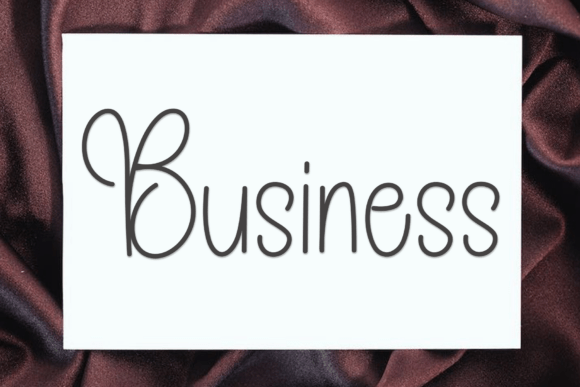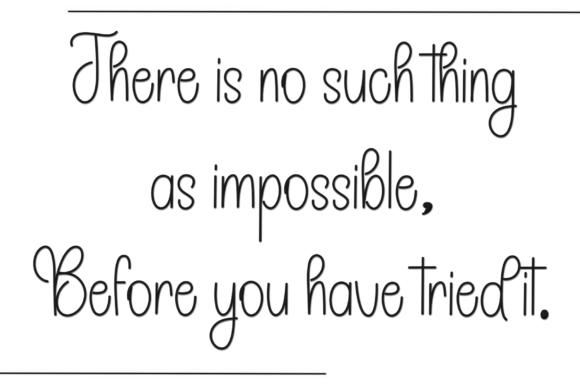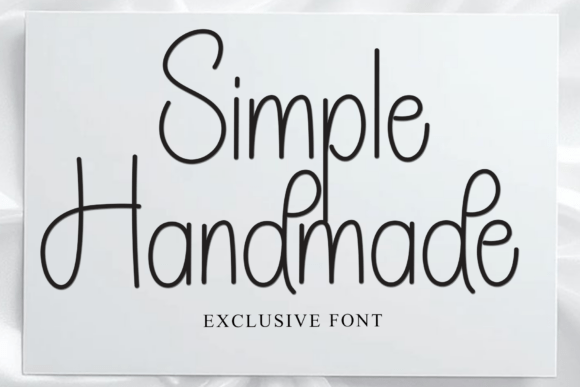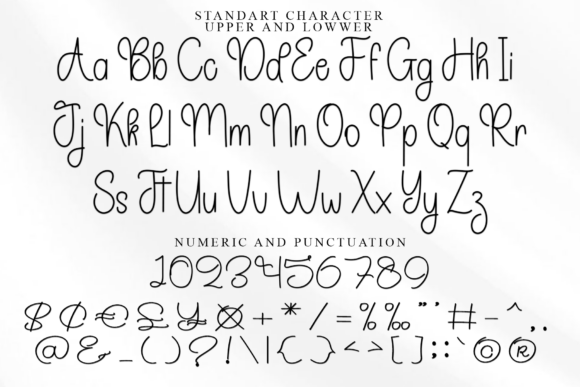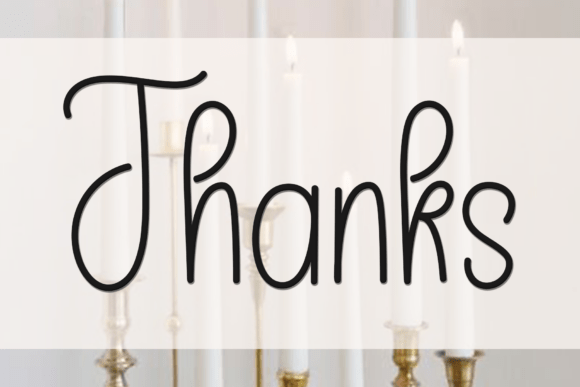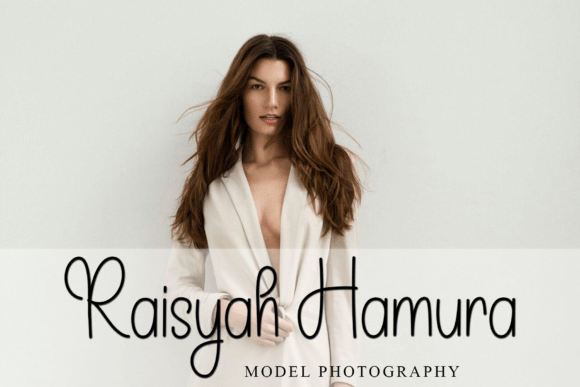
Introduction to Smooth Handwriting Font Font
Fonts play a crucial role in design, and the Smooth Handwriting Font font is a typeface that brings both character and versatility to any project. Whether you’re working on a branding project, a website, or a print design, the Smooth Handwriting Font font offers a unique style that can elevate your work.
Smooth Handwriting is a sophisticated and fluid script font designed to bring a graceful, artisanal touch to creative projects.
This style of calligraphy font features vertically elongated letterforms with a consistent monolinear weight and smooth character joins The structure utilizes tall ascenders and a rhythmic visual flow to create a sense of airy, hand-sculpted movement that feels both personal and high-end.
Key Features of Smooth Handwriting Font Font
Why Choose Smooth Handwriting Font Font?
The Smooth Handwriting Font font is more than just a typeface – it’s a design tool that helps you communicate your message with style and clarity. Its unique character set and versatile design make it suitable for a wide range of applications, from elegant invitations to bold headlines.
With its carefully crafted letterforms and balanced proportions, the Smooth Handwriting Font font ensures readability and visual appeal across all mediums.
What makes Smooth Handwriting Font font special?
The Smooth Handwriting Font font stands out with its unique design, exceptional readability, and versatility across various design applications.